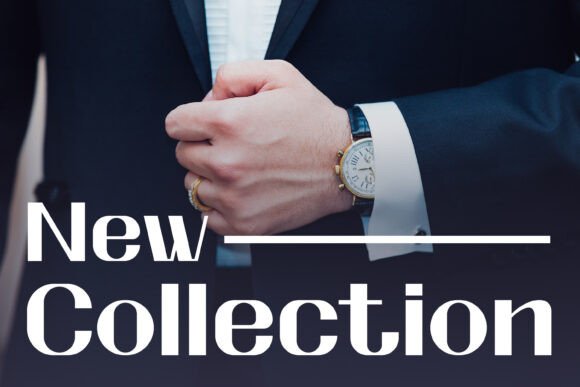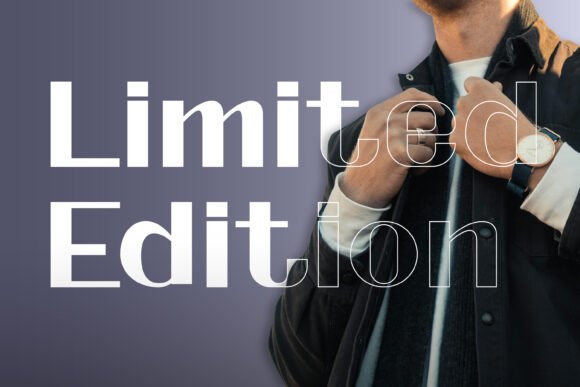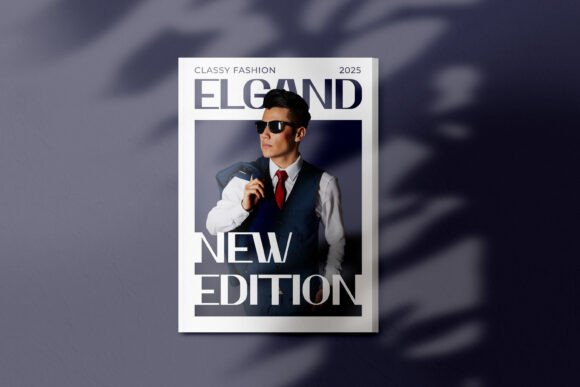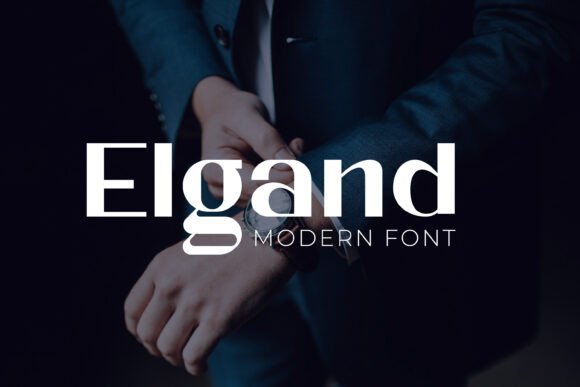
Introduction to Elgand Font
Elgand – A Bold Modern Typeface for Premium Branding A sleek, bold, and confident modern font.
With it’s clean lines, high contrast, and a premium vibe Elgand is perfect for luxury branding, editorial designs, logos, and anything that needs a polished, high-end look It’s got that perfect balance of bold and classy, making it ideal for fashion labels, upscale products, tech brands, and modern magazines.
Key Features of Elgand Font
Why Choose Elgand Font?
Elgand Font offers exceptional quality and versatility, making it a valuable addition to your design toolkit. Whether you’re creating for personal projects or commercial use, Elgand Font delivers professional results.